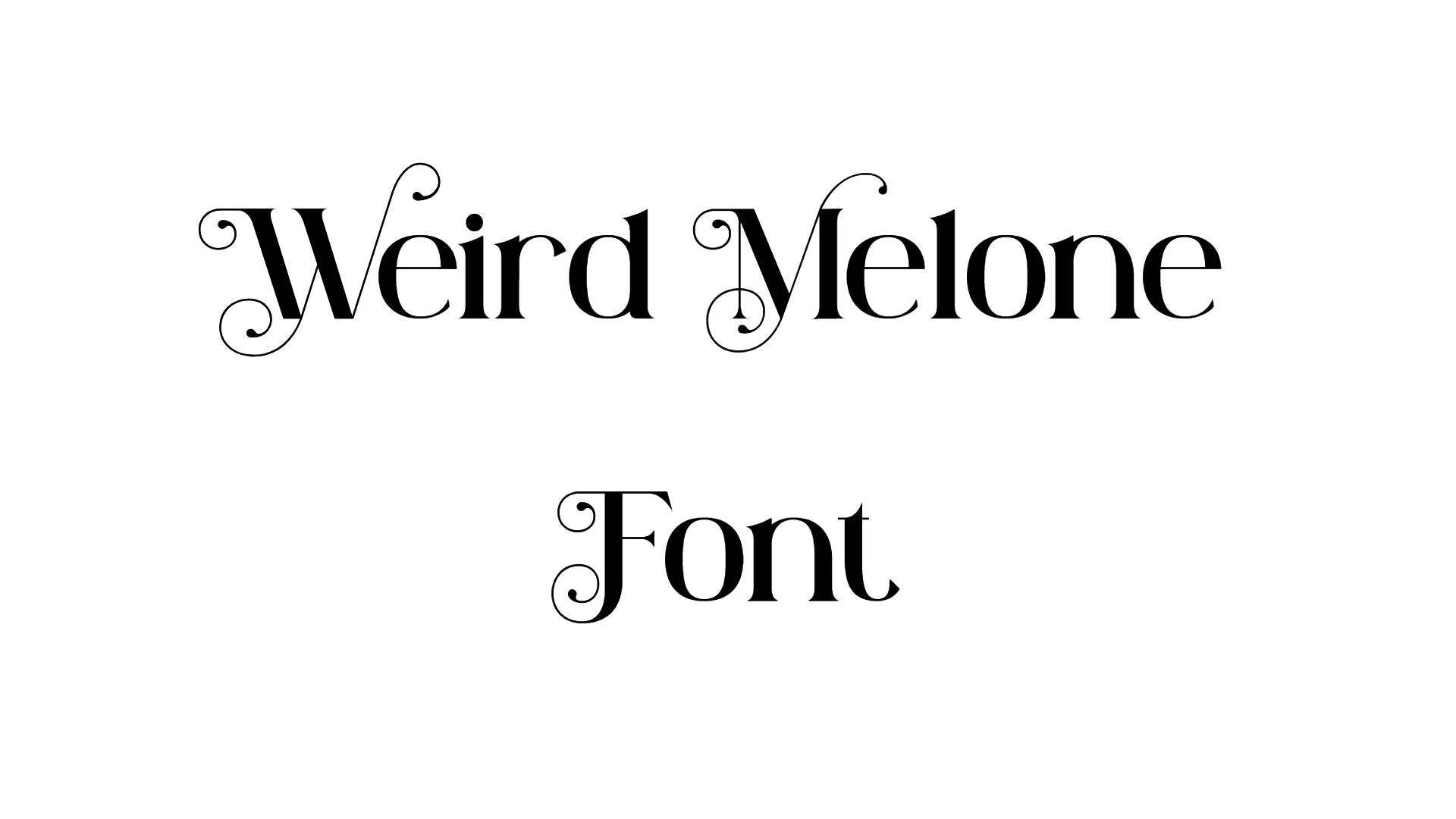
Weird Melone Font
Studio LetterStock designed Weird Melone, an incredibly detailed and distinct retro serif display font, which LetterStock and GumaCreative published. The studio drew heavy inspiration from vintage, hand-drawn movie posters in local coffee shops, blending natural handmade charm with precise digital curves. Its quirky, ornate character accents make it highly effective for logos, product packaging, retro advertising flyers, café labels, and unique book covers.
Weird Melone
What You Can Type With Weird Melone
You get every letter from A to Z in both cases and all the numbers from 0 to 9, which means Weird Melone can handle full sentences, dates and prices. Everyday marks like &, !, ? and @ are there too. Thanks to its accented letters, it also works for Spanish, French, German, Portuguese and Italian, not just English.
Where Weird Melone Works Best
Designers usually reach for fonts like Weird Melone when they're making book covers, magazine headlines and classic branding. Serif fonts shine in headlines and printed text. For long paragraphs on phones, check that it still reads well at small sizes.
Does Weird Melone support accented letters?
Yes. Weird Melone includes the accented letters needed for Spanish, French, German, Portuguese and Italian, so it works for more than just English.